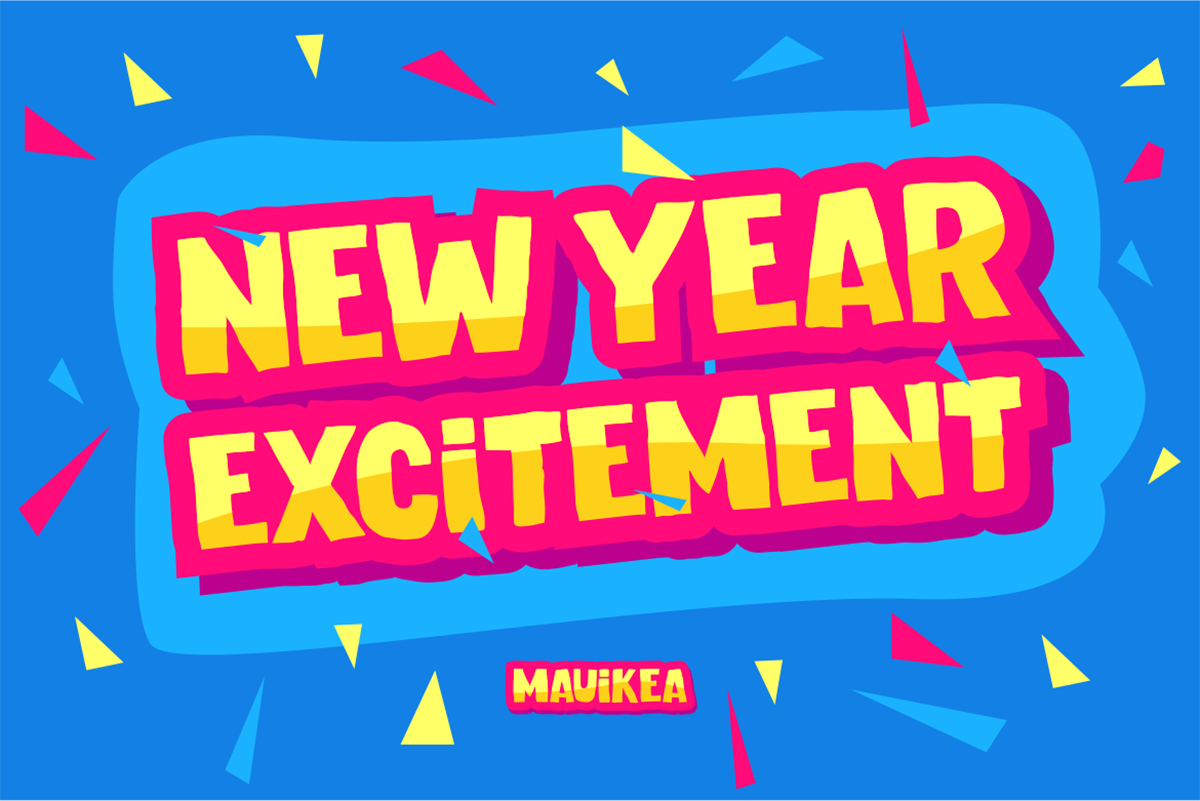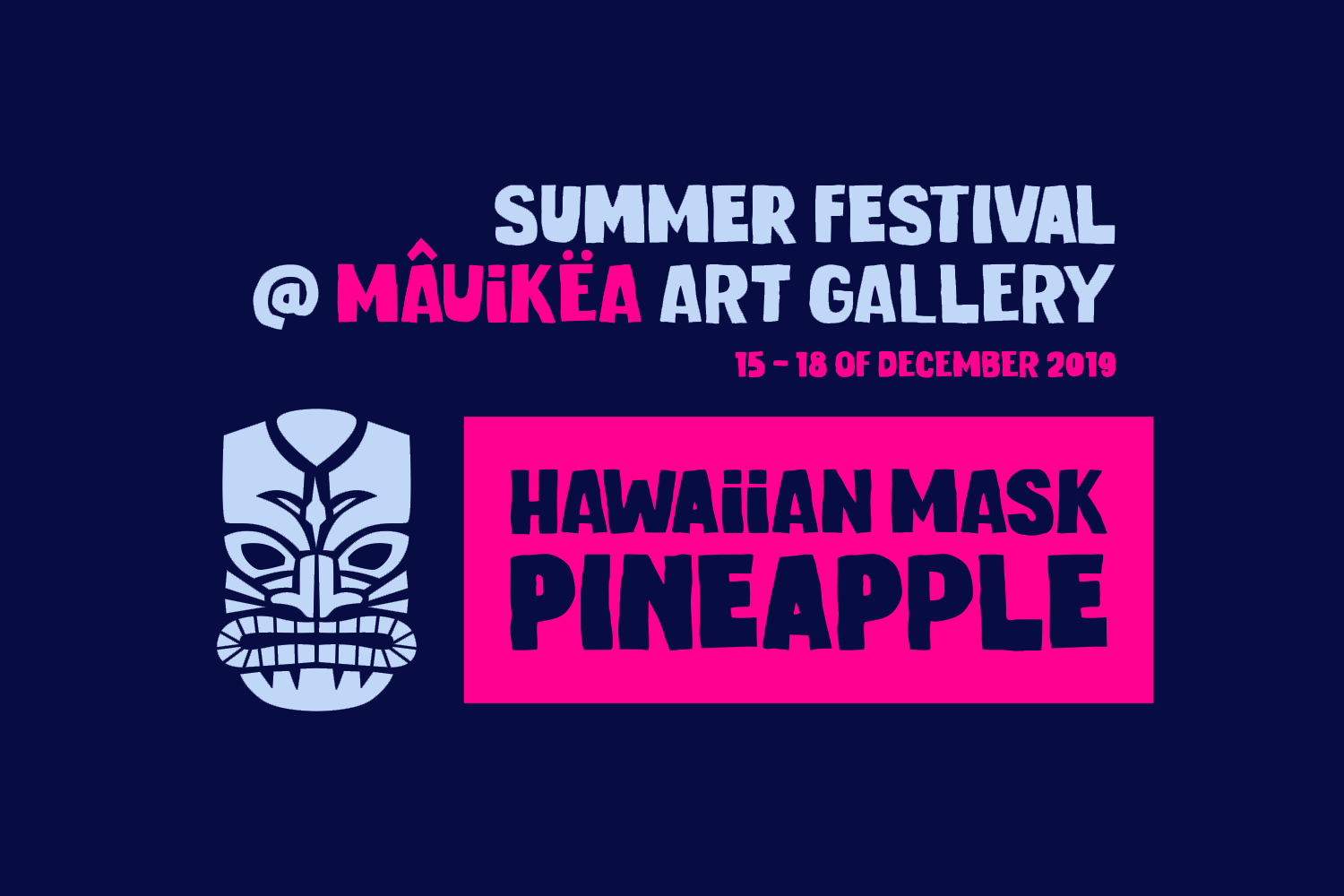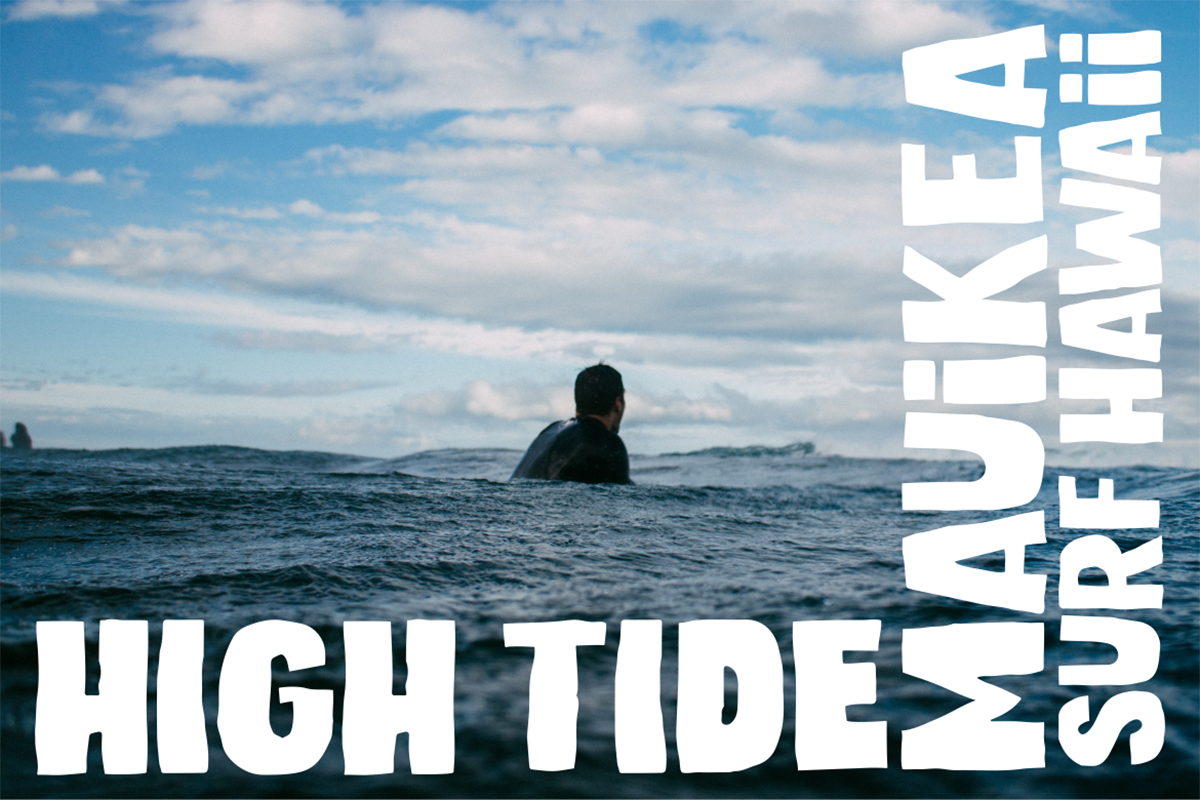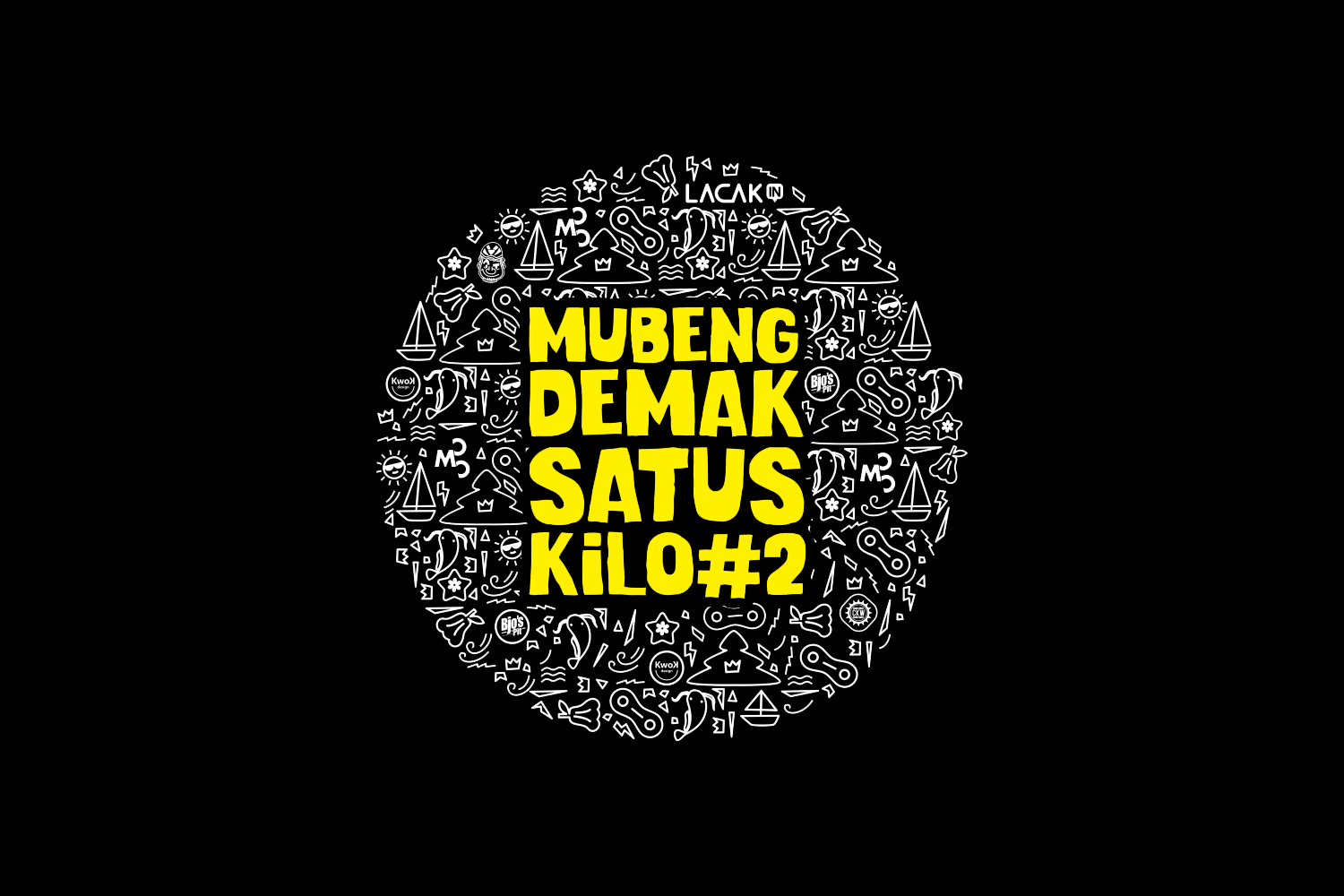
Mauikea Free Font
Mauikea Free Font reminds you about the powerful volcanic mountain, the huge wave, and powerful attitude. All caps with slightly different shapes between lowercase and uppercase, that will give you a more natural feel of it. This free typeface was designed by the talented Alexatype Foundry. If you like it don’t forget to check out the full version.